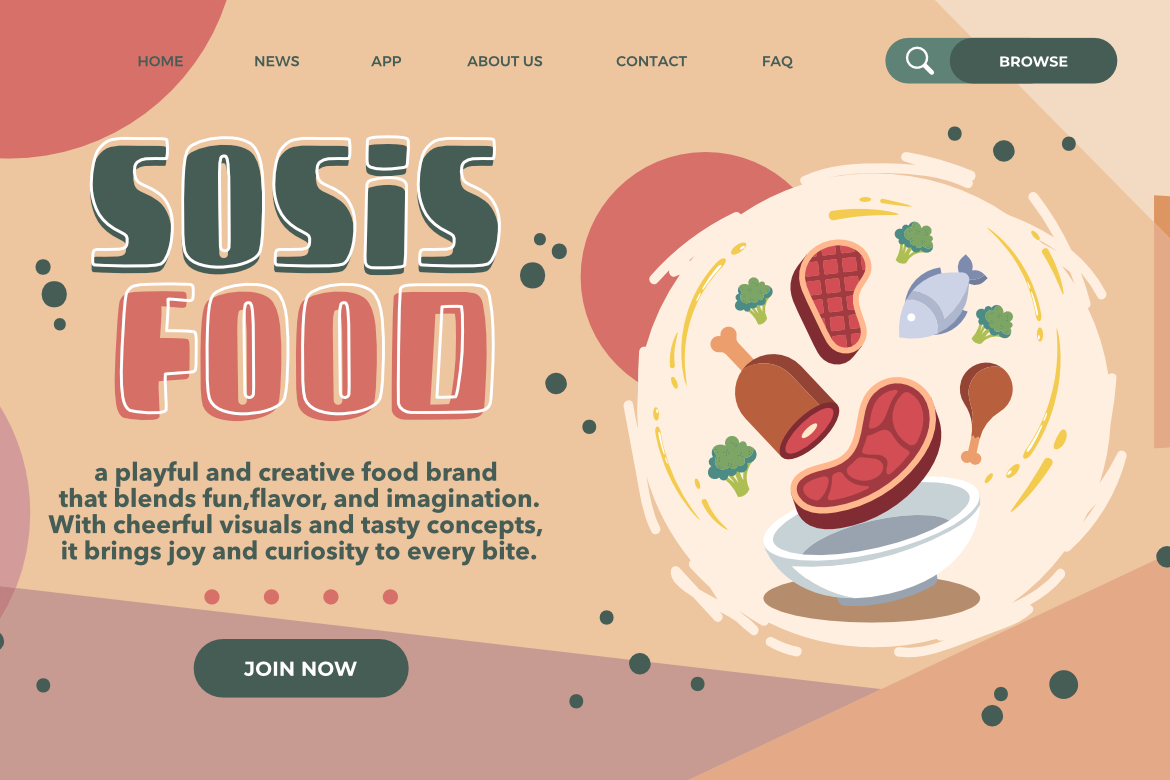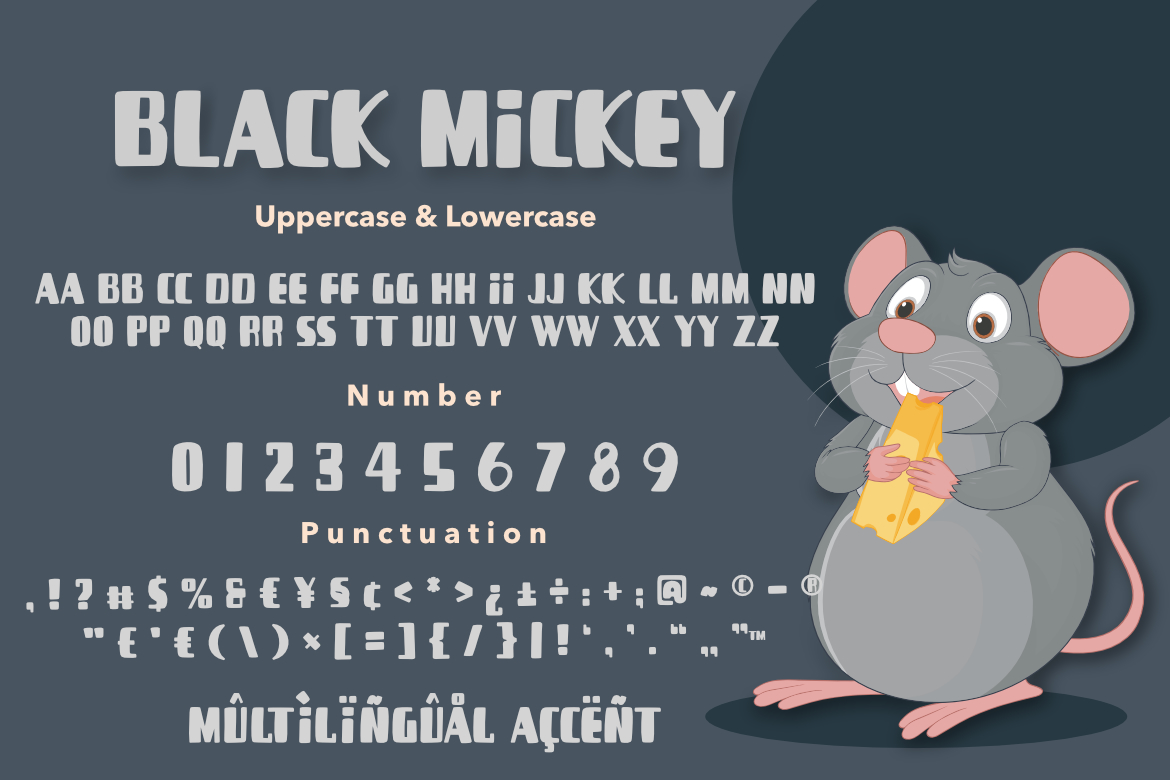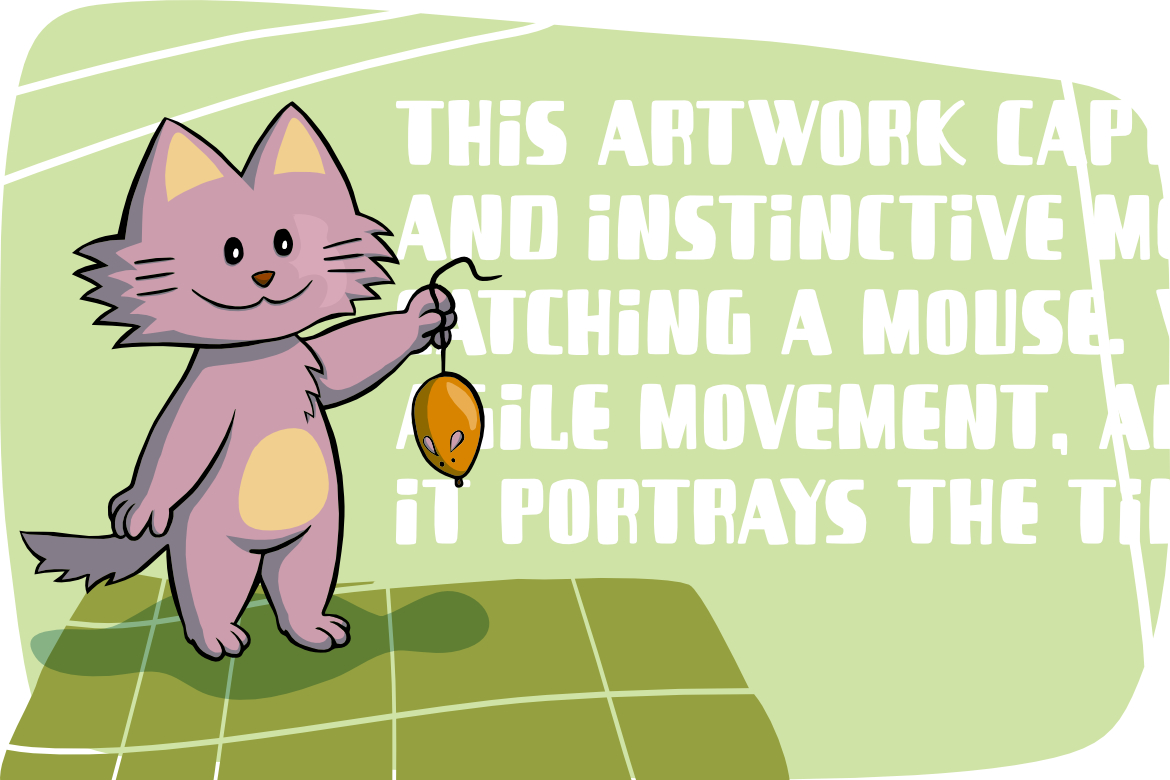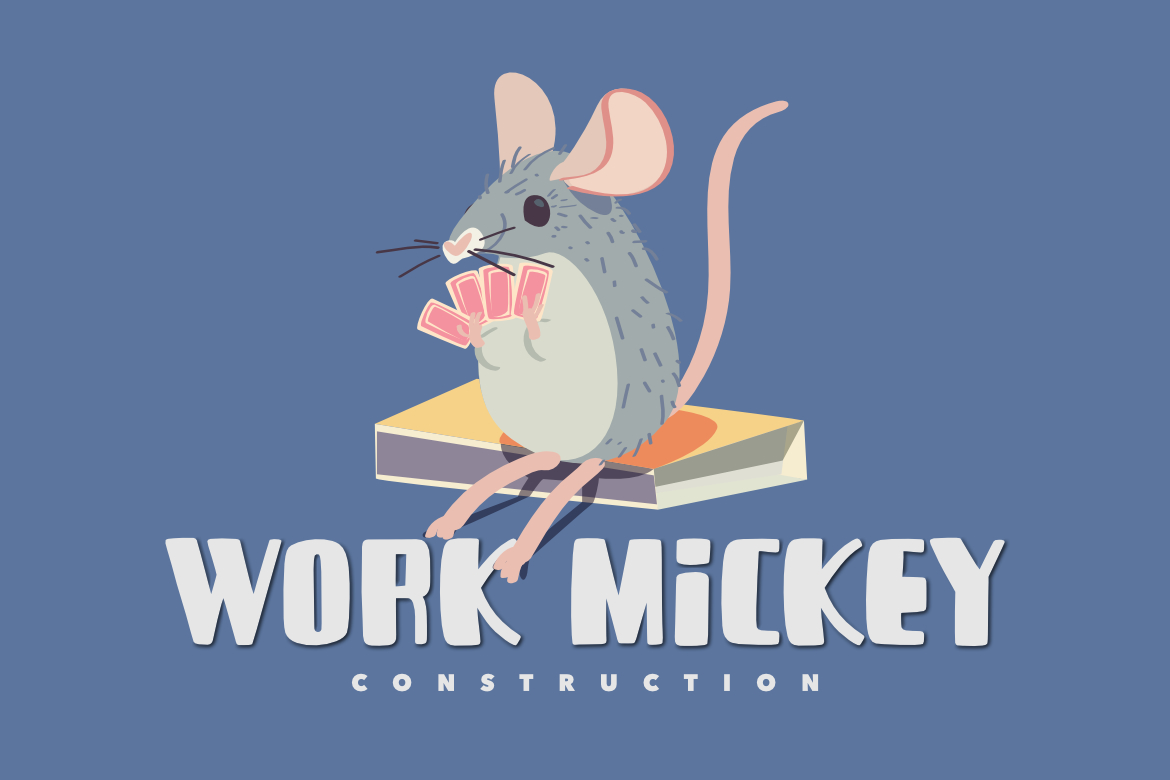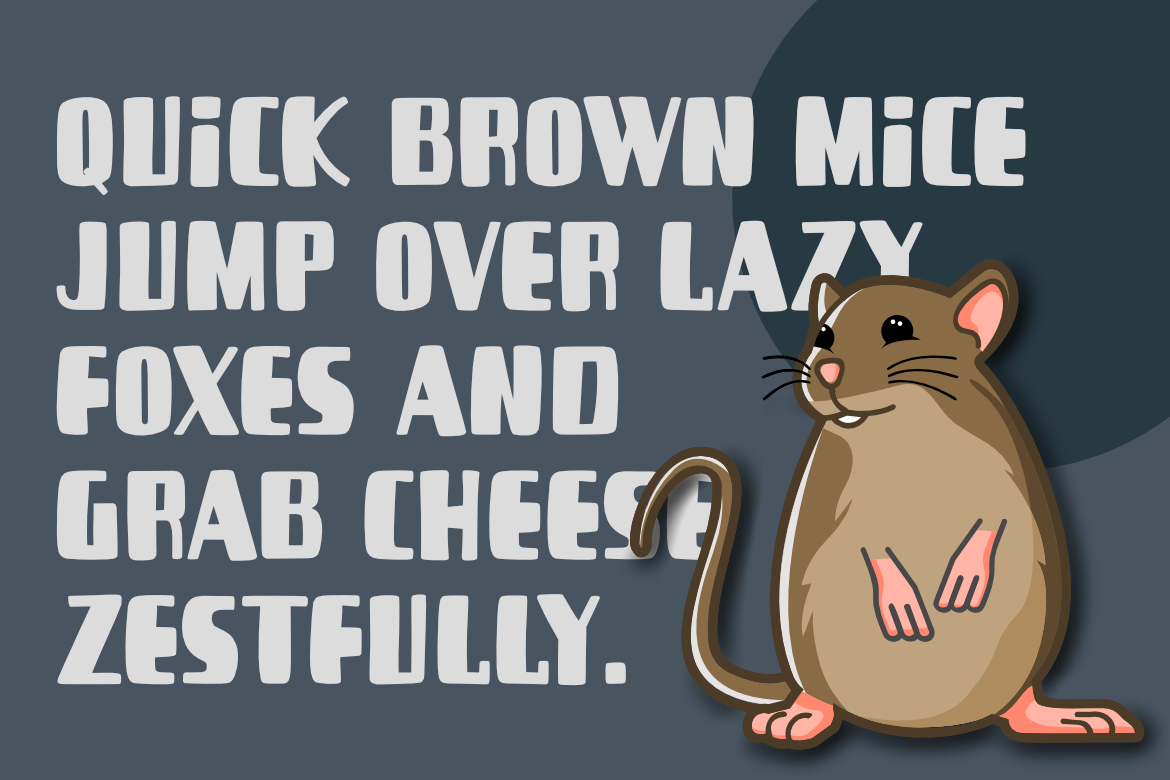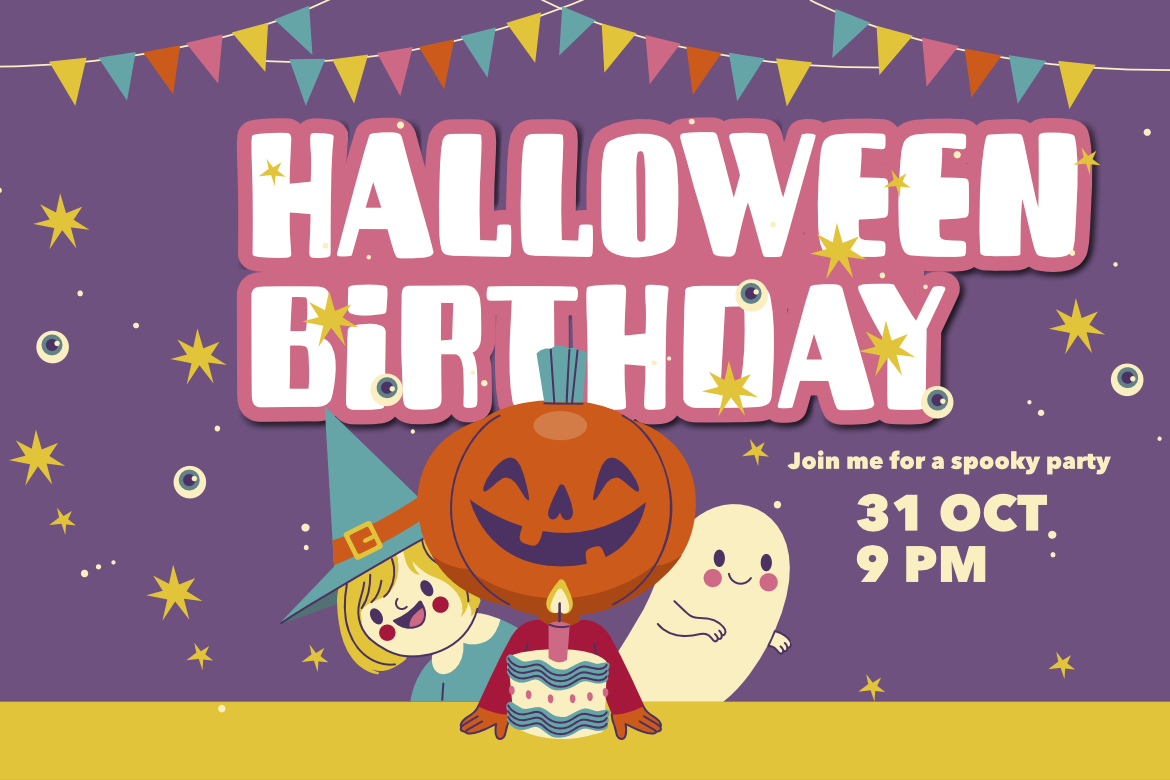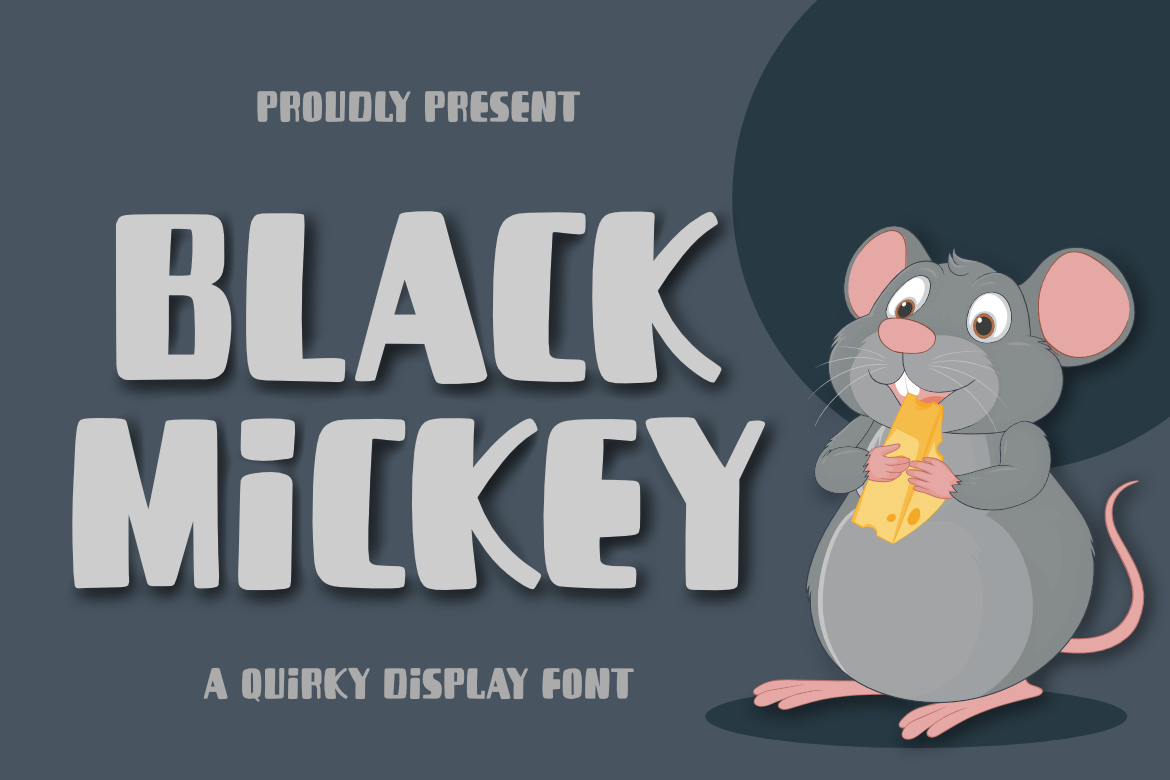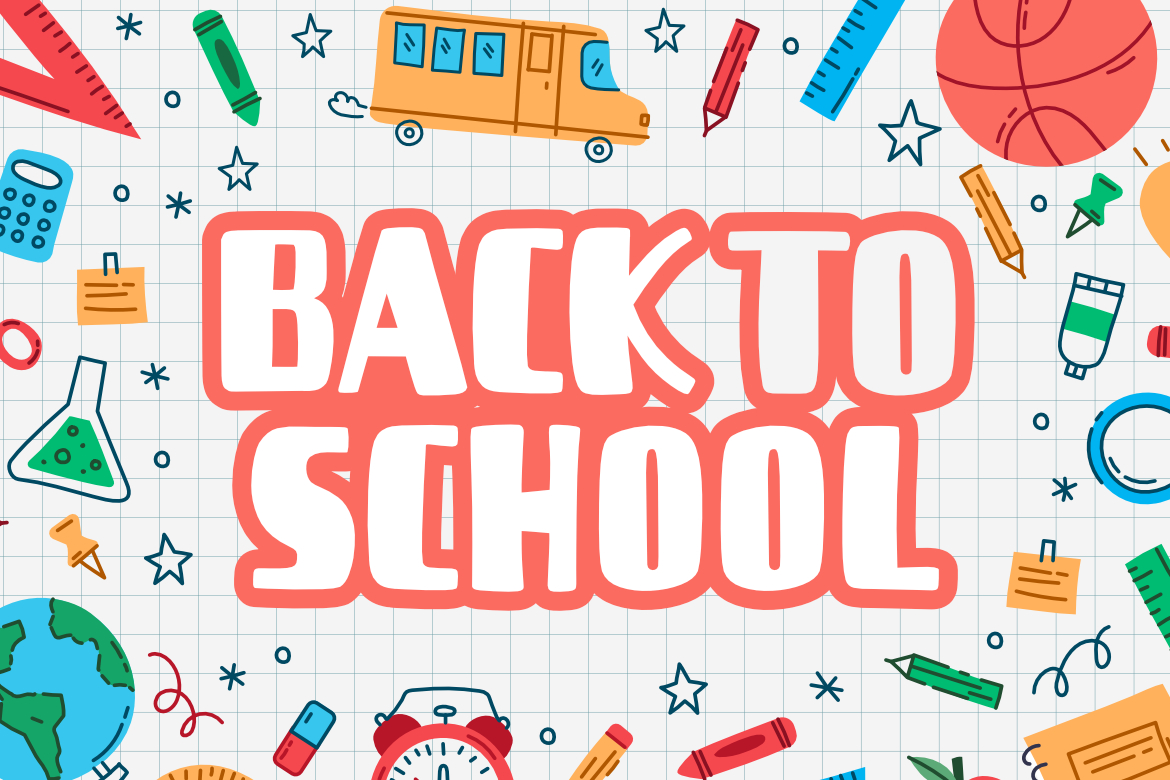
Black Mickey a Quirky Premium Font
**Black Mickey a Quirky Font**
Black Mickey A Quirky Font captures the cheerful and playful spirit of fun storytelling and cartoon design. With its rounded edges, bouncy curves, and friendly charm, this typeface radiates joy and personality — perfect for projects that need a dose of happiness and humor.
Every letter feels alive, mimicking the whimsical energy of animated characters and the cozy world of childhood imagination. Designed to be both bold and approachable, Black Mickey brings warmth and charm to any creative scene.
This font is ideal for playful branding, food packaging, children’s books, or any design that celebrates fun and positivity. Black Mickey turns simple words into a delightful visual experience that’s both expressive and memorable.
**Key Features :**
* Uppercase & Lowercase
* Numerals & Punctuation
* Multilingual Support
* PUA Encoded & OpenType Features
**Suitable For :**
* Kids & Cartoon Branding
* Food & Snack Packaging
* Playful Logos & Titles
* Posters & Merchandise
* Children’s Book Covers & Story Projects
With _Black Mickey A Quirky Font,_ your designs will smile with personality — friendly, fun, and irresistibly charming.